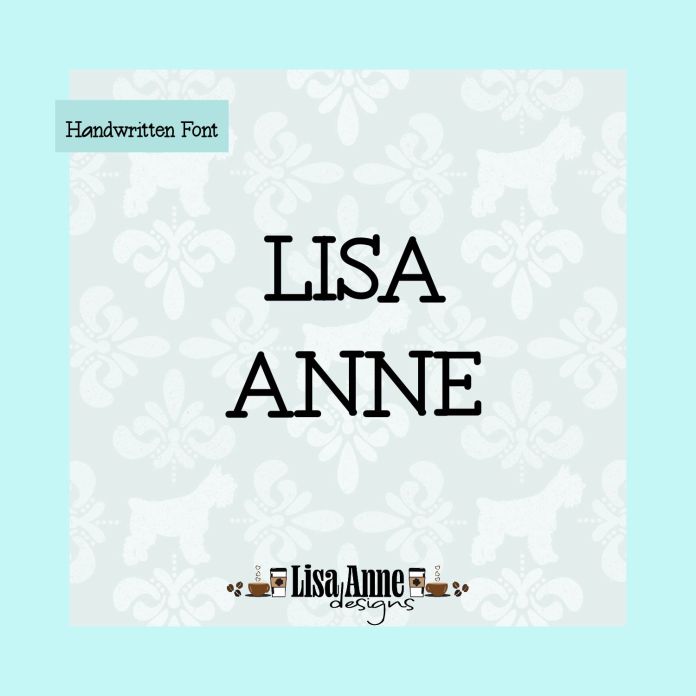
Introducing Lisa Anne, a handwritten font with a clean, modern feel and timeless charm. Perfect for branding, logos, wedding designs, quotes, invitations, business cards, social media graphics, and craft projects, this premium OTF font blends style with versatility. Glyph count = 141